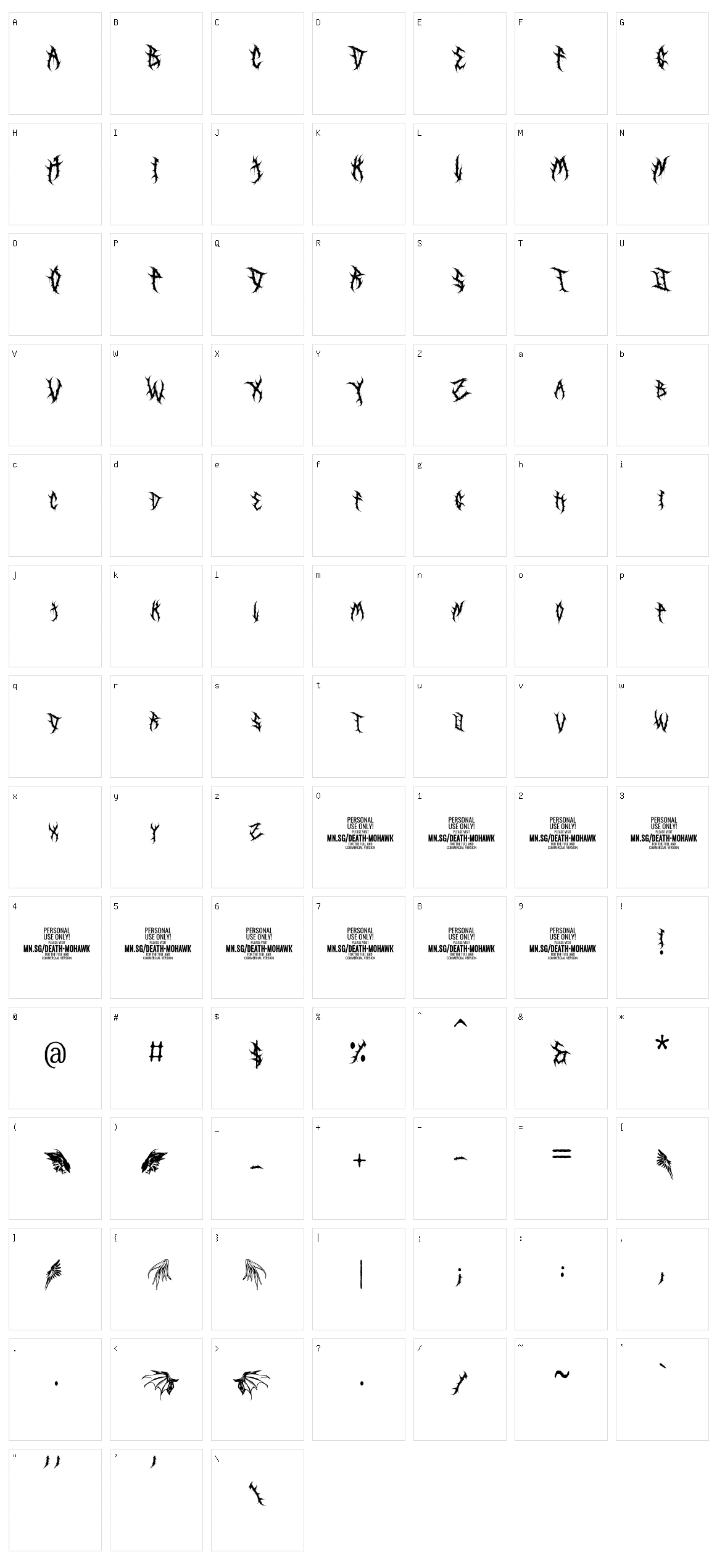
Death Mohawk
Designed by: Mans Greback
Death Mohawk is a rough metal font.
This Korn/Slipknot style typeface with is distressed letterforms is optimized for a musical logotype.
Its eroded and destroyed edges gives it a heavy and grungy look.
Use parenthesis symbols ( ) [ ] { } < > to make wings around any word.
Example: [Heavy Metal]
Use % after any letter to make it symmetric.
Example: MayheM% or Roxo%R%
The font is built with advanced OpenType functionality and has a guaranteed top-notch quality, containing stylistic and contextual alternates, ligatures and more features; all to give you full control and customizability.